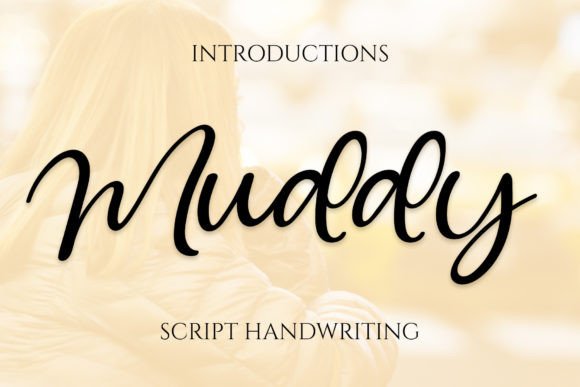
Introducing Muddy Font - The Quintessential Script Font for Business, Crafted by YanStudio!
Muddy Font is an exquisite creation, a cursive handwritten font that embodies grace and elegance. Its gentle strokes and flowing characters will bring a touch of joy and romance to any design project. Perfectly suited for branding, logo design, wedding invitations, greeting cards, fashion, lookbooks, and marketing promotions, Muddy Font will elevate your designs and leave a lasting impression.
With Muddy Font, you can effortlessly create designs that exude sophistication and charm. Its versatility knows no bounds, allowing you to bring your creative visions to life with ease. From branding projects that demand a distinctive identity to wedding invitations that evoke romance and elegance, Muddy Font is the perfect choice for those seeking a font that speaks volumes.
Imagine your business logo adorned with the beautiful characters of Muddy Font, instantly capturing attention and leaving a lasting impression on potential customers. Or, envision wedding invitations that radiate joy and elegance, setting the tone for a romantic celebration. With Muddy Font, the possibilities are endless.
Whether you're a seasoned designer or just starting out, Muddy Font is the perfect addition to your creative toolkit. Its user-friendly nature makes it accessible to designers of all skill levels, ensuring that your design ideas are brought to life with precision and ease.
So, embark on a design journey with Muddy Font and experience the joy of creating designs that are both visually stunning and emotionally captivating. Let your creativity flourish as you discover the endless possibilities that await you with this remarkable script font.